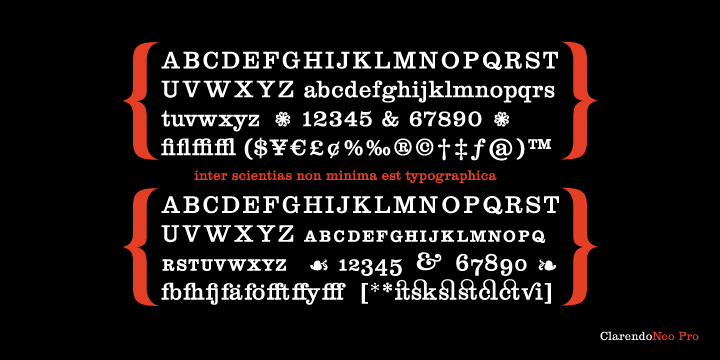
ClarendoNeo Font is perfect for contemporary publishing, modern editorial design, sophisticated magazines, premium brand identities, elegant websites, professional reports, cultural publications, art gallery materials, luxury product catalogs, and refined marketing communications.
ClarendoNeo Font is exciting because it masterfully reimagines classical serif traditions with contemporary sophistication, featuring refined letterforms that bridge timeless elegance with modern functionality. Its carefully balanced proportions and subtle design innovations create a distinctive voice that speaks to discerning audiences while maintaining the authority and readability that serious publications demand.
ClarendoNeo Font family includes thin, light, regular, medium, bold, and black weights, each with matching italic versions. The font family also features small caps, old-style figures, contemporary ligatures, and extensive punctuation sets that support sophisticated typographic layouts and professional publishing applications.
This elegantly modern typeface represents the perfect evolution of classical typography for contemporary needs. ClarendoNeo Font Free Download allows designers to explore its sophisticated capabilities before making a commercial investment. The font's ability to convey both tradition and innovation makes it ideal for brands seeking to establish cultured, authoritative identities.
Whether you're developing prestigious editorial projects, creating luxury brand materials, or designing sophisticated digital experiences, ClarendoNeo Font delivers exceptional elegance and typographic excellence. Its refined character and contemporary sensibility ensure optimal performance across both traditional print and modern digital applications.
The font's versatility excels in cultural and intellectual environments where sophistication and credibility are paramount. Its elegant presence makes it particularly effective for museums, galleries, publishing houses, and premium brands seeking to communicate refined taste and cultural awareness.
For designers working on projects requiring sophisticated elegance and contemporary authority, ClarendoNeo Font provides an exceptional solution. Its refined character and comprehensive typographic features offer the tools needed for distinguished communications, while its modern sensibility ensures your designs remain relevant and engaging for today's sophisticated audiences.